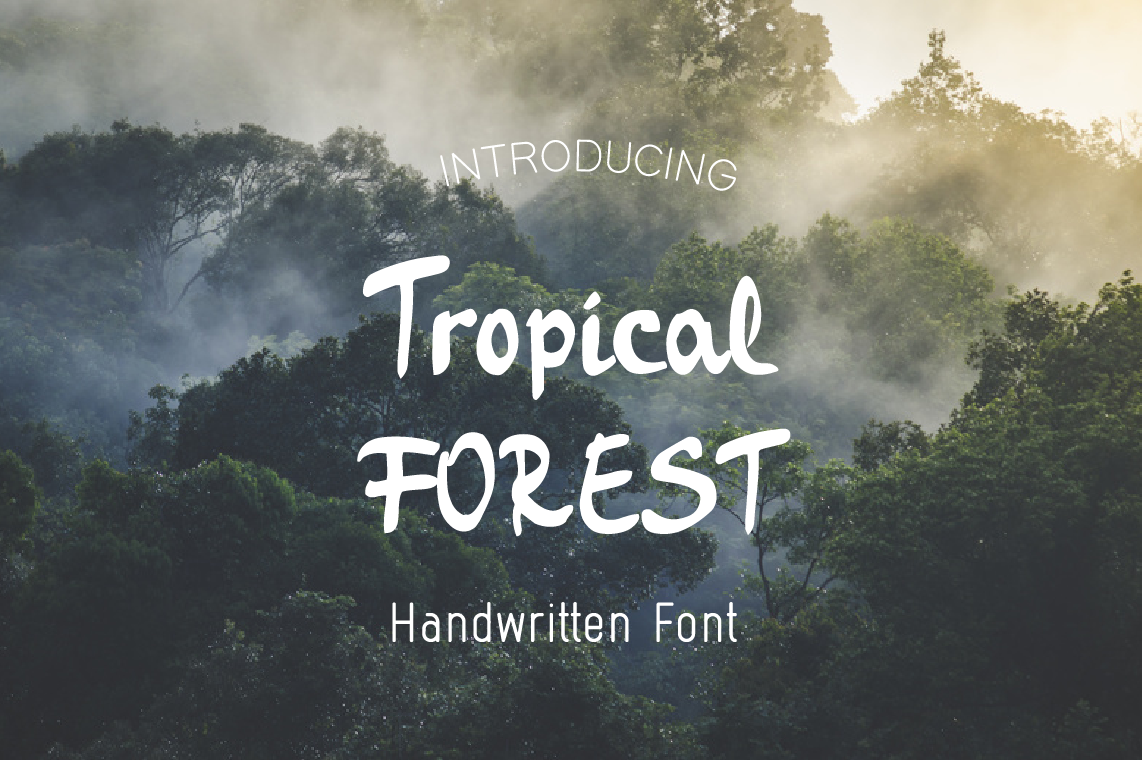
Tropical Forest-Handwritten font
Tropical Forest is a handwritten font created with marker pen.
Tropical Forest contains basic Latin characters, lowercase and uppercase, punctuation and numbers.
Tropical Forest type is best choice for:
- quotes
- posters
- logos
- print ads
digital ads...